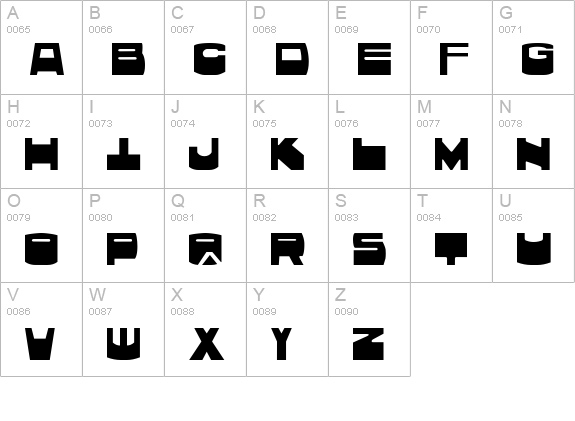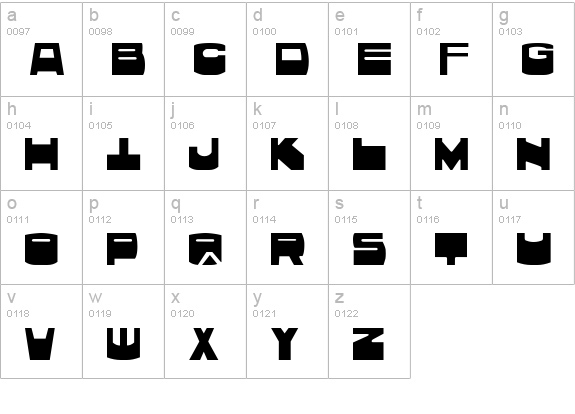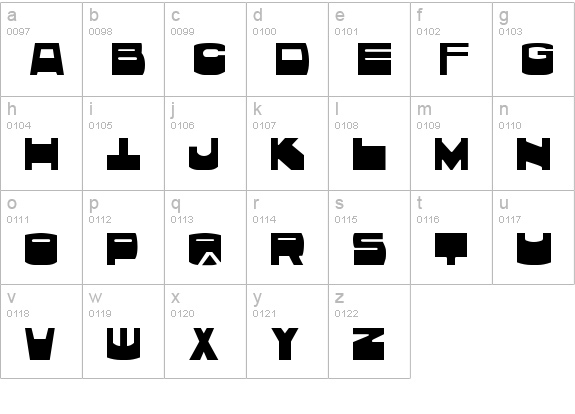
Kunst Font Details
The Kunst font is a stunning display typeface that exudes elegance and sophistication. Its sleek lines and stylish curves make it a perfect choice for a wide range of design projects, from branding to editorial design. The font's unique character and versatility make it a standout choice for those looking to add a touch of class to their work. What sets Kunst font apart is not just its exceptional design, but also the fact that it is available for free download at FontsMarket.com. This means that designers and creatives can access this beautiful font without any cost, making it a valuable addition to their font library. With its modern aesthetic and timeless appeal, Kunst font is sure to elevate any design project to new heights. Download it today and see the difference it can make in your work!